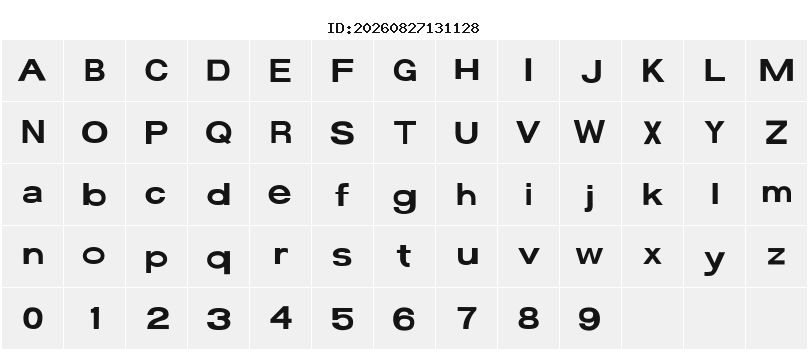
• Font Name: 17B-Fun
• Copyright: Typeface © Daniel Lyons now also known as 538Lyons Font Design. 2013. All Rights Reserved. This font is based off of the El Perro Y El Gato words, the Teapigs logo, and the "visual design" tagline in the Chris Brown visual design logo. This font is available for commercial use.
• Designer: Daniel Lyons
• Description: A very, goofy, headline and whimsical font for you to use for your projects.
17B-Fun.ttf is a modern, elegant sans-serif font designed for ultimate readability and visual harmony. Perfect for branding, headlines, web design, and print materials.